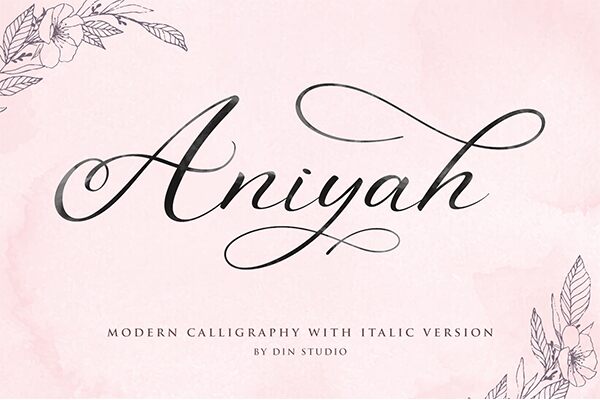
Introducing Aniyah Script Beautiful Calligraphy. Made with naturally handwritten and modern style. it brings beautiful and modern typeface. Aniyah Script best use for wedding, branding, logotype, and quotes.
Aniyah Script Features :
Beautiful ligatures
PUA encoded
Multilingual Support
Numbering & amp; Punctuation
1 front swash & 2 end swash (a-z)
Alternates (b,d,g,h,j,k,l,t)